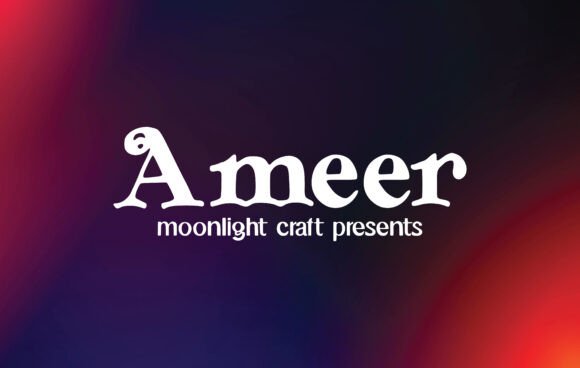
The Ameer Font: Elevate Your Designs with Elegance
I’ll never forget the time I was working on a logo design project for a client’s upscale boutique. I had a clear vision of what I wanted to create, but I just couldn’t find the right font to bring it all together. The client wanted something elegant, sophisticated, and eye-catching, but everything I tried seemed to fall flat. That’s when I stumbled upon the Ameer font, and it was like a lightbulb went off in my head! ✨
The Ameer font is a stunning, versatile typeface that has the potential to take your creative ideas to the highest level. In this article, I’ll share my honest review of the font, provide a practical guide on how to use it, and explore similar fonts and alternatives.
• ✨ Elegant and sophisticated design that’s perfect for high-end branding and logos
• ✅ Extensive character set, including OpenType features and glyphs
• ✅ Works beautifully for both digital and print applications
While the Ameer font is exceptional, there are a few things to keep in mind: 🤔
• ⚠️ Some users may find the font a bit too ornate for certain design projects
• ⚠️ Limited availability of stylistic alternates, which may limit creative flexibility
Designer Inspiration: The Story Behind Ameer Font
The Ameer font was designed with inspiration from traditional Middle Eastern calligraphy. The designer aimed to create a font that was both elegant and legible, with a unique blend of classic and modern elements. The result is a stunning typeface that’s perfect for high-end branding, logos, and quotes.
Q: What type of projects is the Ameer font best suited for?
A: The Ameer font is ideal for high-end branding, logos, and quotes, as well as any project that requires an elegant and sophisticated touch.
Q: Is the Ameer font available in multiple languages?
A: Yes, the Ameer font supports multiple languages, including English, Arabic, and other languages that use the Latin or Arabic scripts.